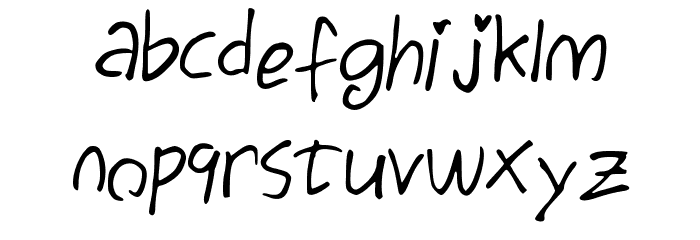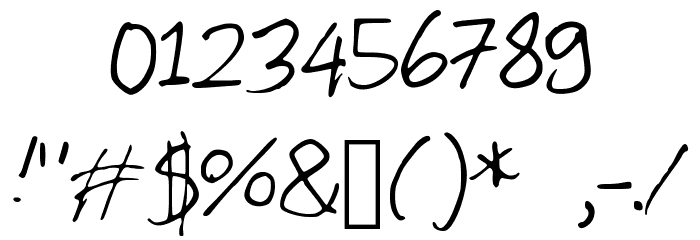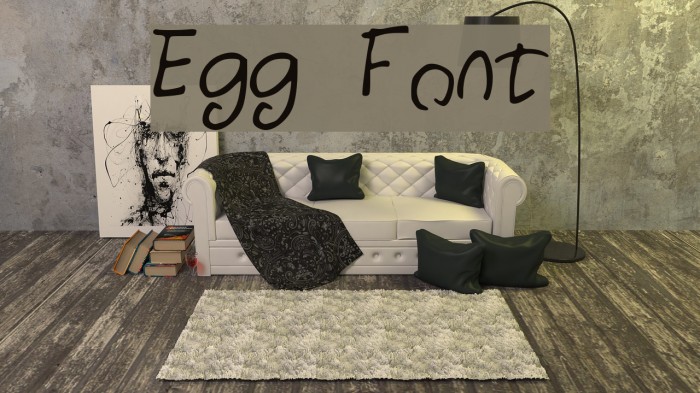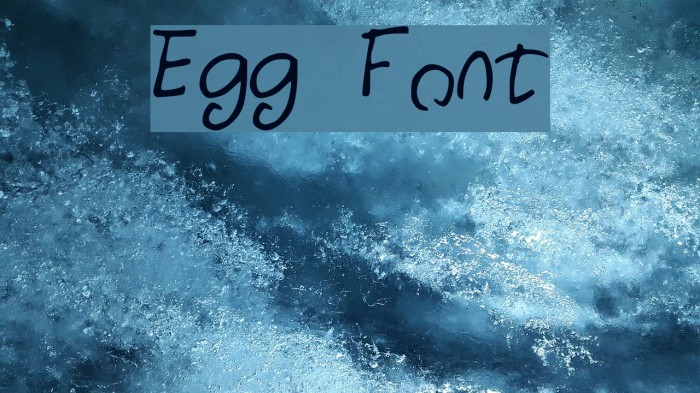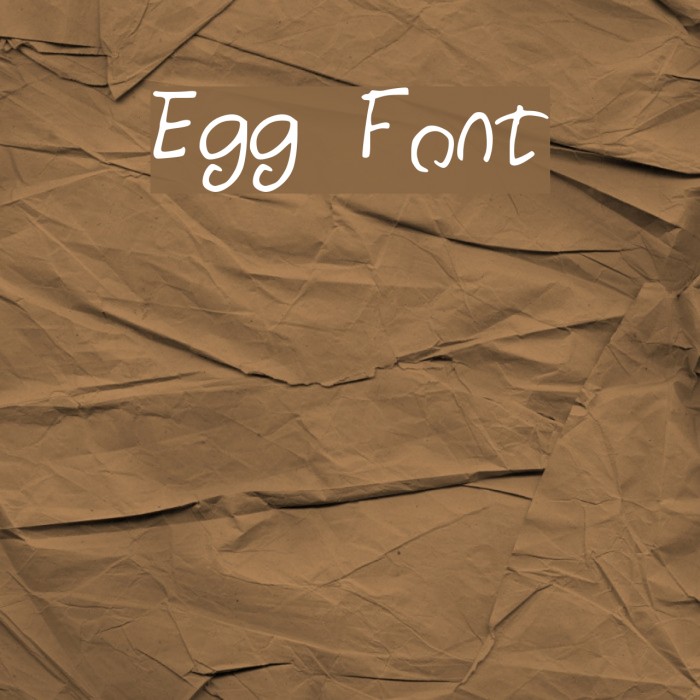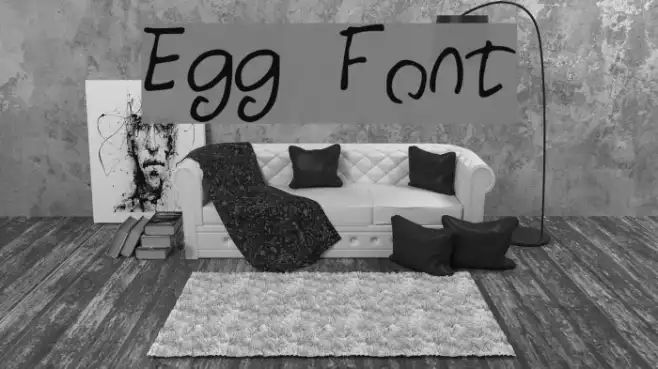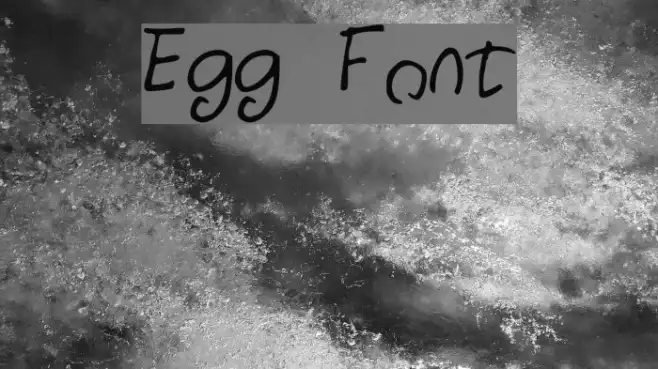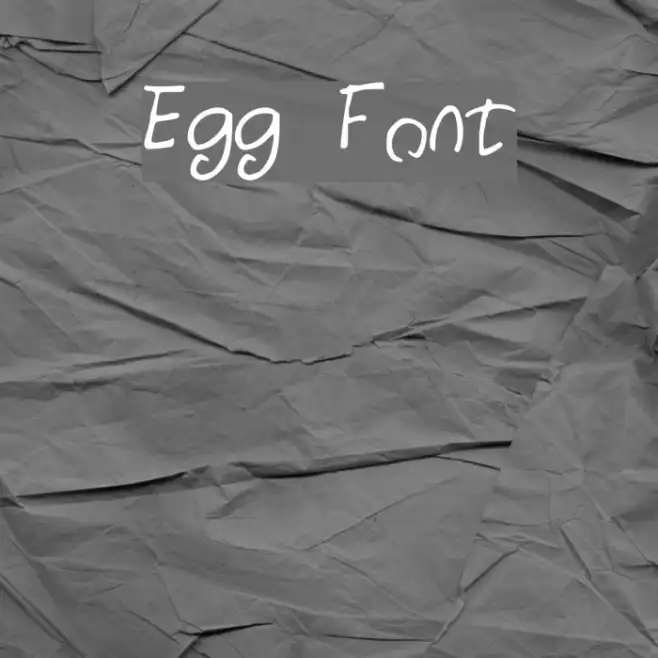
Egg Font
This font features a playful and casual handwritten style, characterized by its smooth, flowing lines and slightly irregular shapes. The letters have a natural, organic feel, with varying stroke widths that add to its informal charm. The uppercase letters are bold and prominent, while the lowercase letters maintain a consistent style with a slight slant, enhancing the handwritten effect. The numerals are clear and legible, matching the overall aesthetic of the alphabet. Special characters are included, maintaining the same playful and approachable style. This font is perfect for projects that require a personal touch, such as invitations, greeting cards, or casual branding.
A playful, handwritten font with smooth, flowing lines and a casual style.
- Proposed Projects: Ideal for invitations, greeting cards, casual branding, and personal projects.
- Overall Style: Casual, Playful
- Use Case: Headlines, Informal text, Personal projects